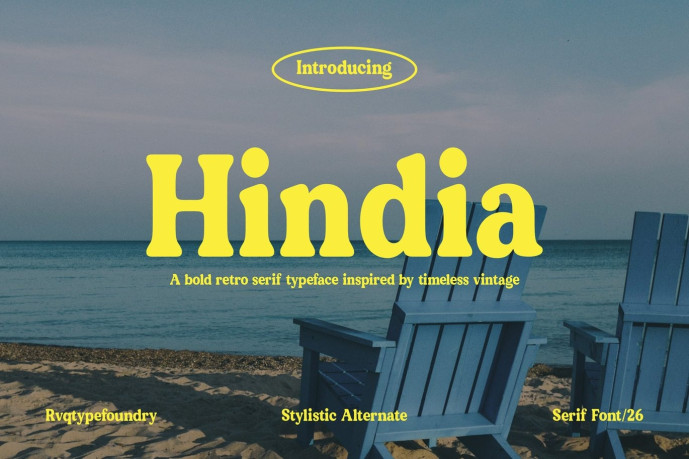
Hindia Typeface
Designer: Rifqi triana
Hindia is a bold retro serif typeface By Rvqtypefoundrt that captures the nostalgic charm of vintage typography while delivering a fresh, modern feel. Designed with soft curves, chunky letterforms, and distinctive stylistic alternates, Hindia is perfect for creating eye-catching designs that stand out with confidence and personality.
Inspired by the golden era of vintage advertising and classic travel posters, this typeface effortlessly blends nostalgic aesthetics with contemporary usability, making it suitable for both professional designers and creative enthusiasts.
Features
Uppercase & Lowercase Characters
Numbers & Punctuation
Stylistic Alternates
Multilingual Support
Hindia is crafted to give your designs a bold personality while maintaining excellent readability. Every letter has been carefully designed to create a smooth rhythm and authentic vintage atmosphere that instantly catches attention.